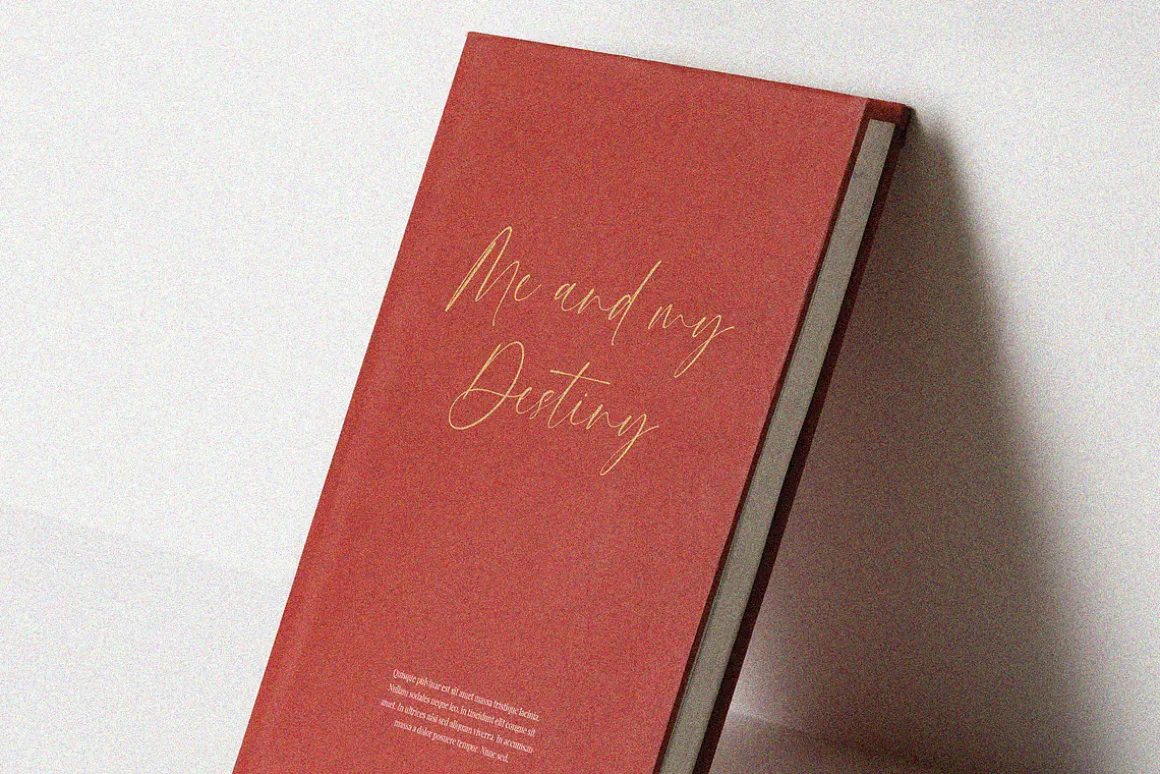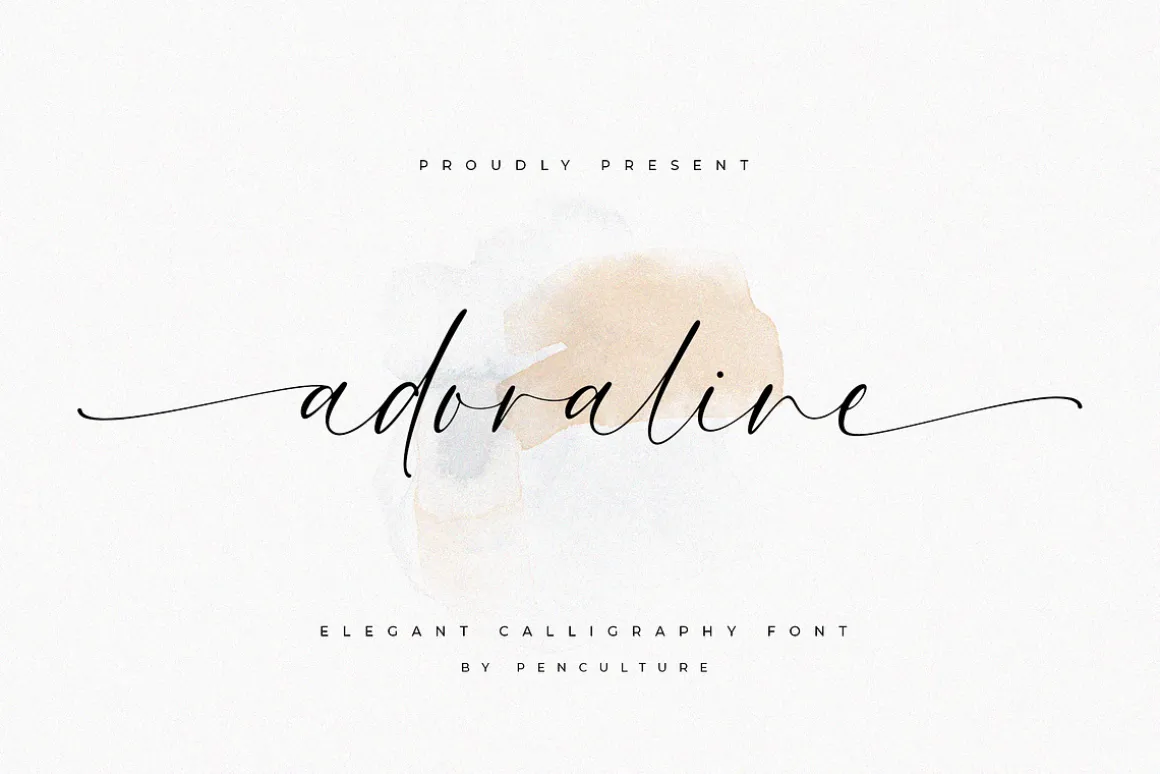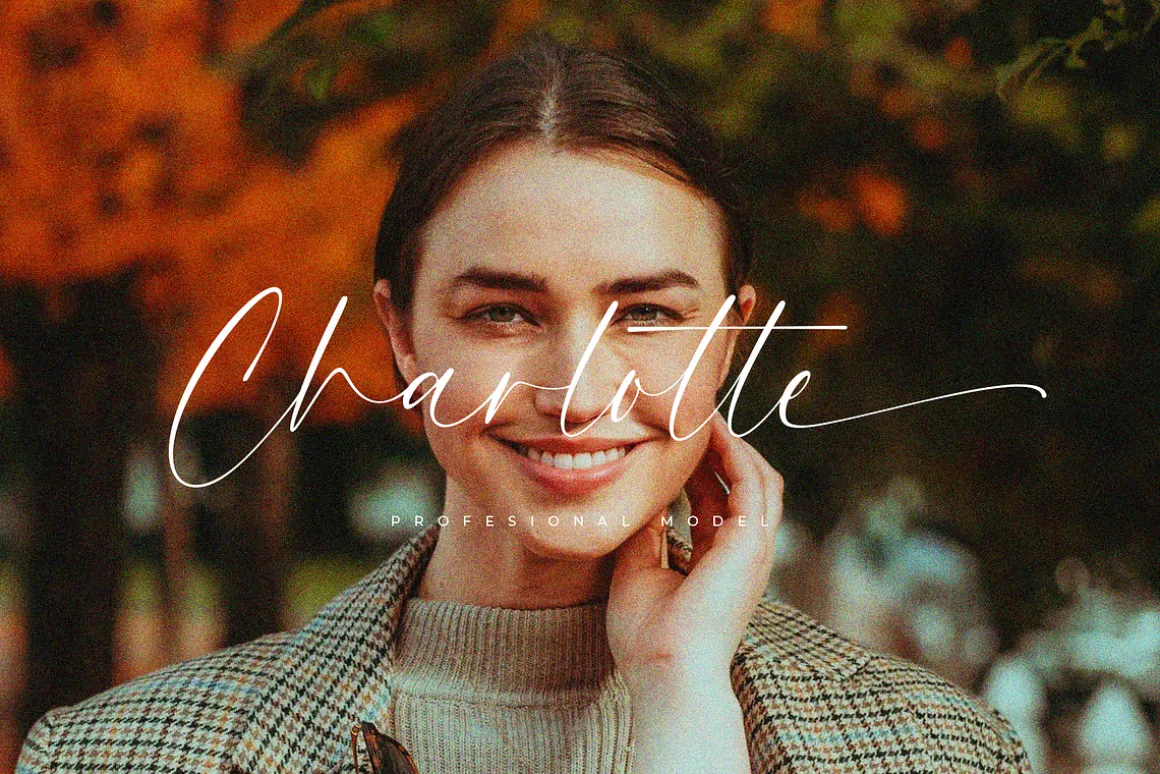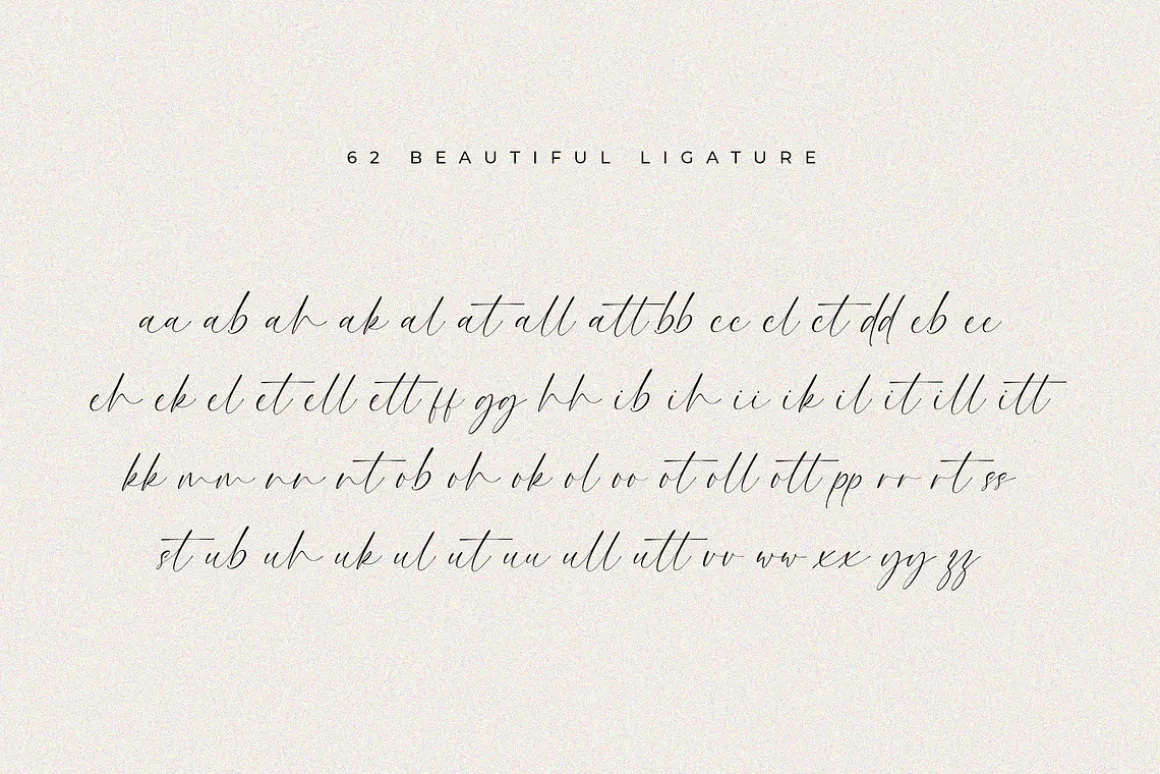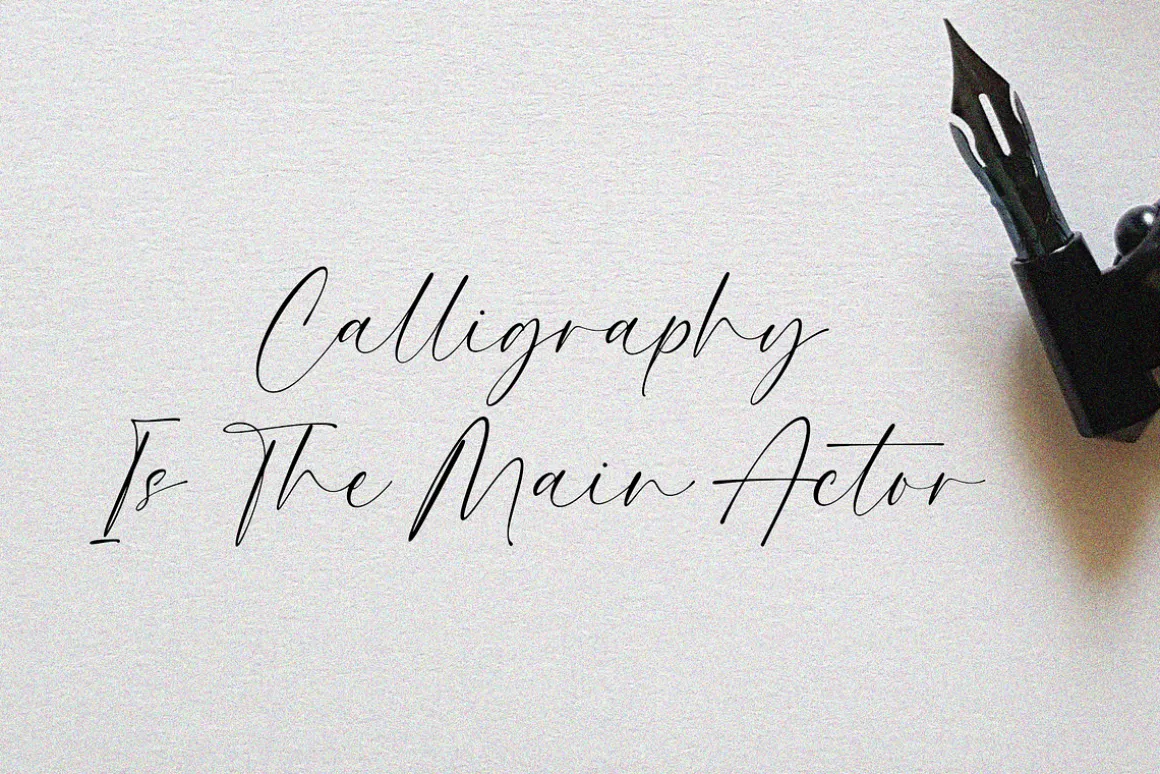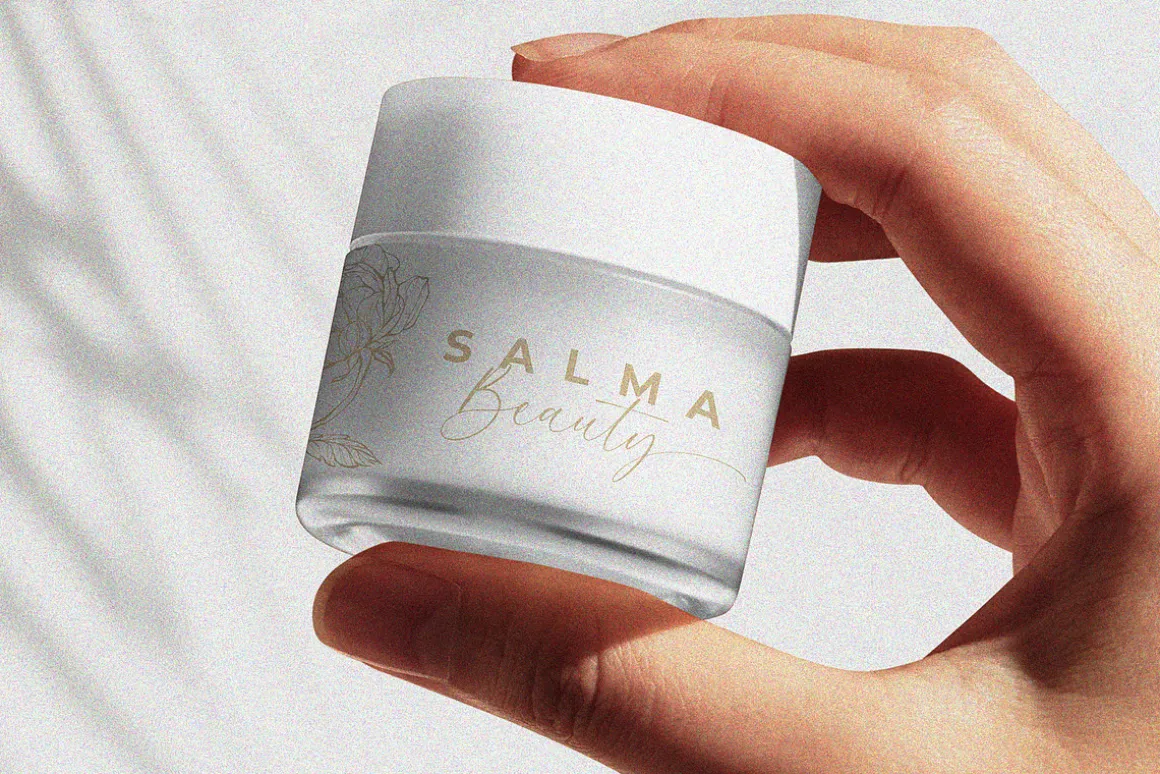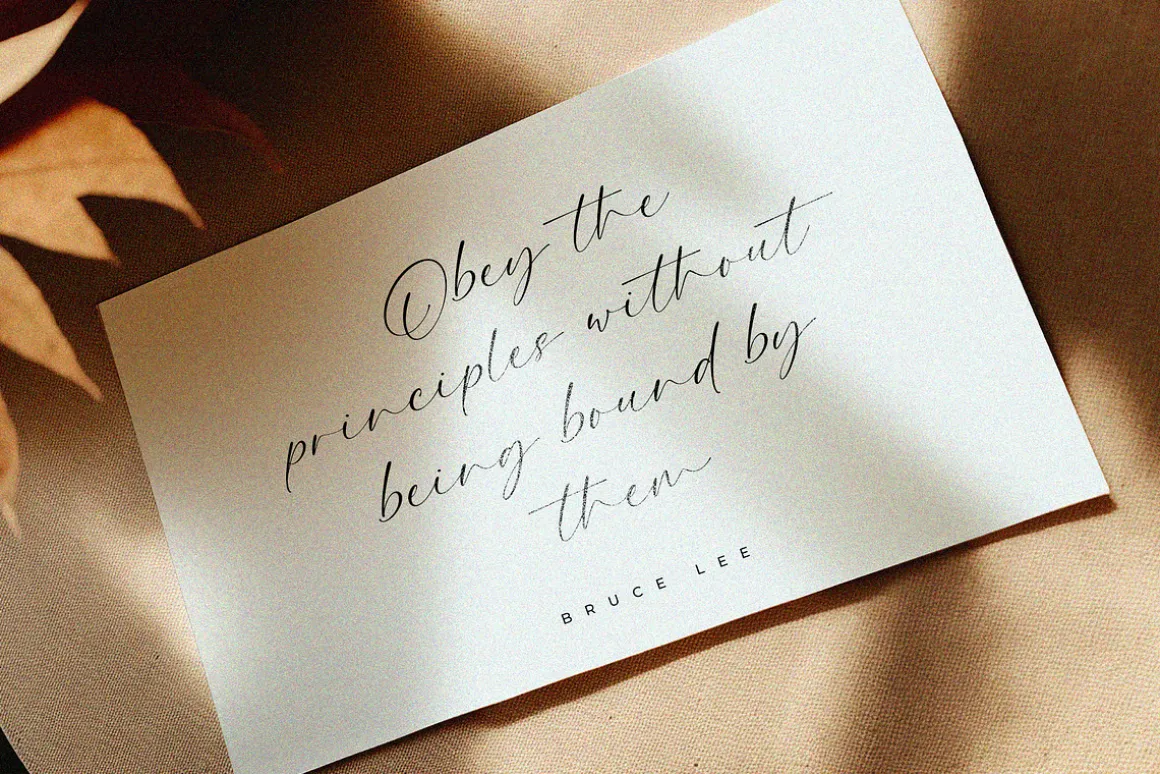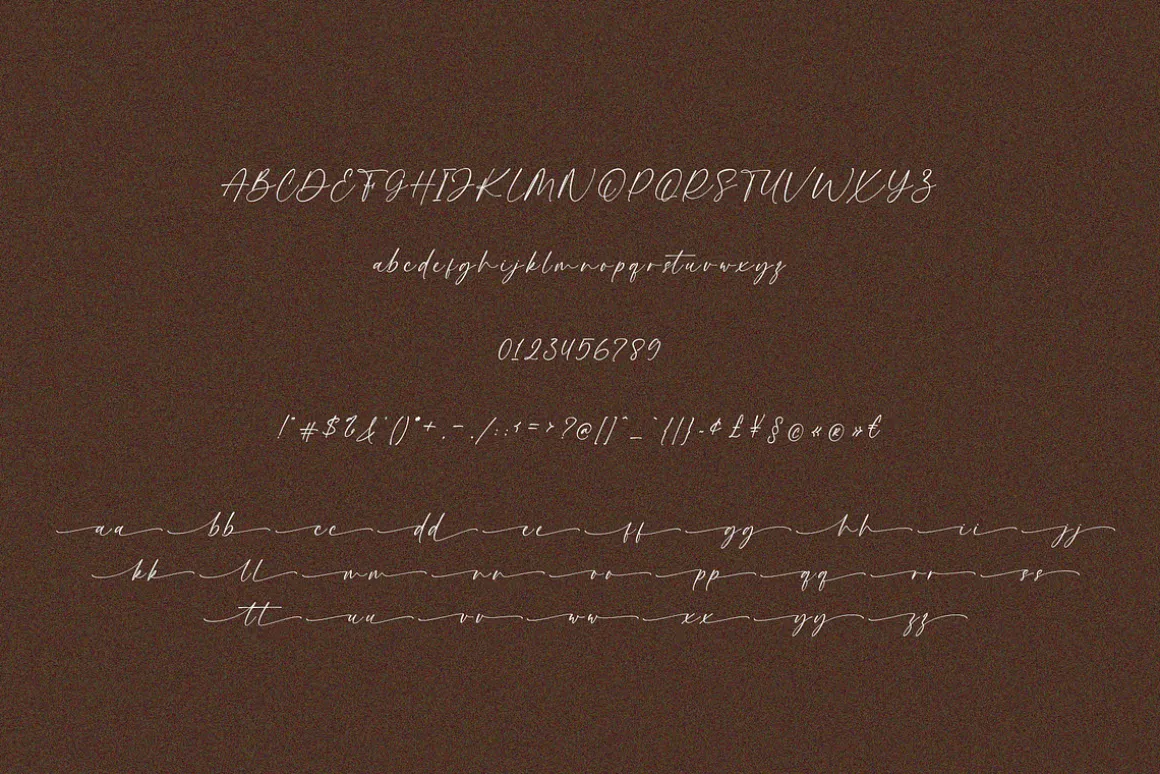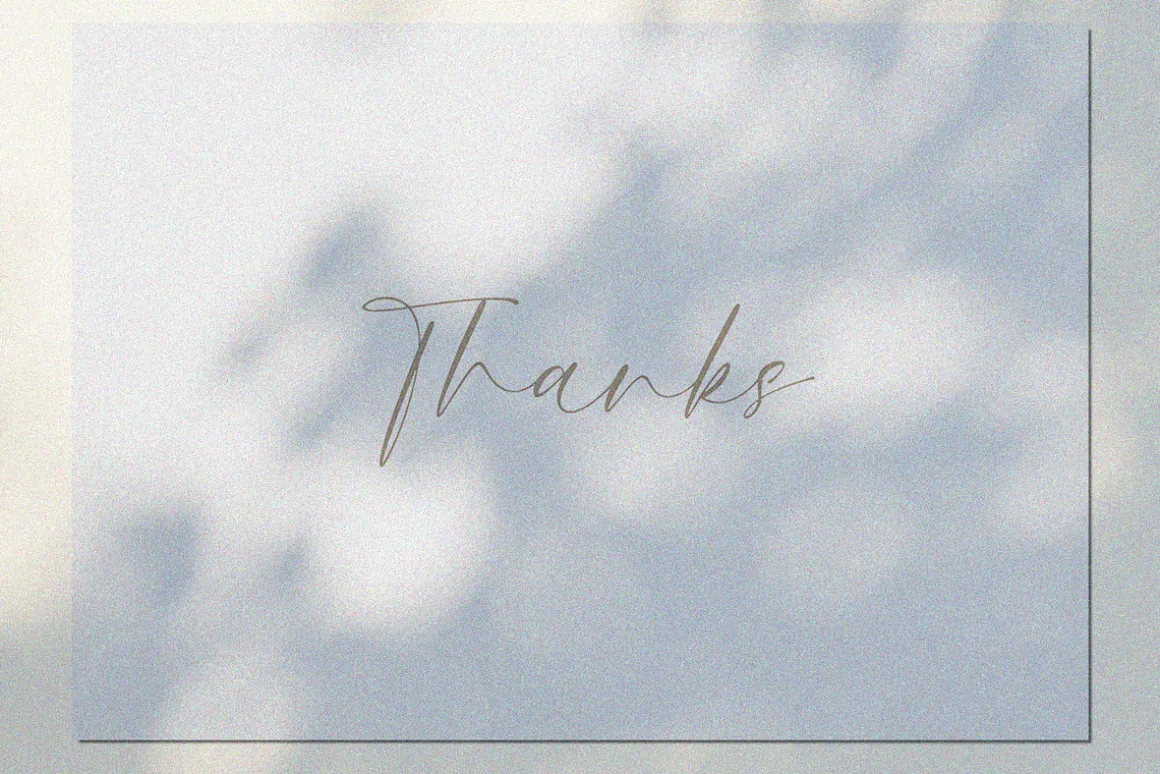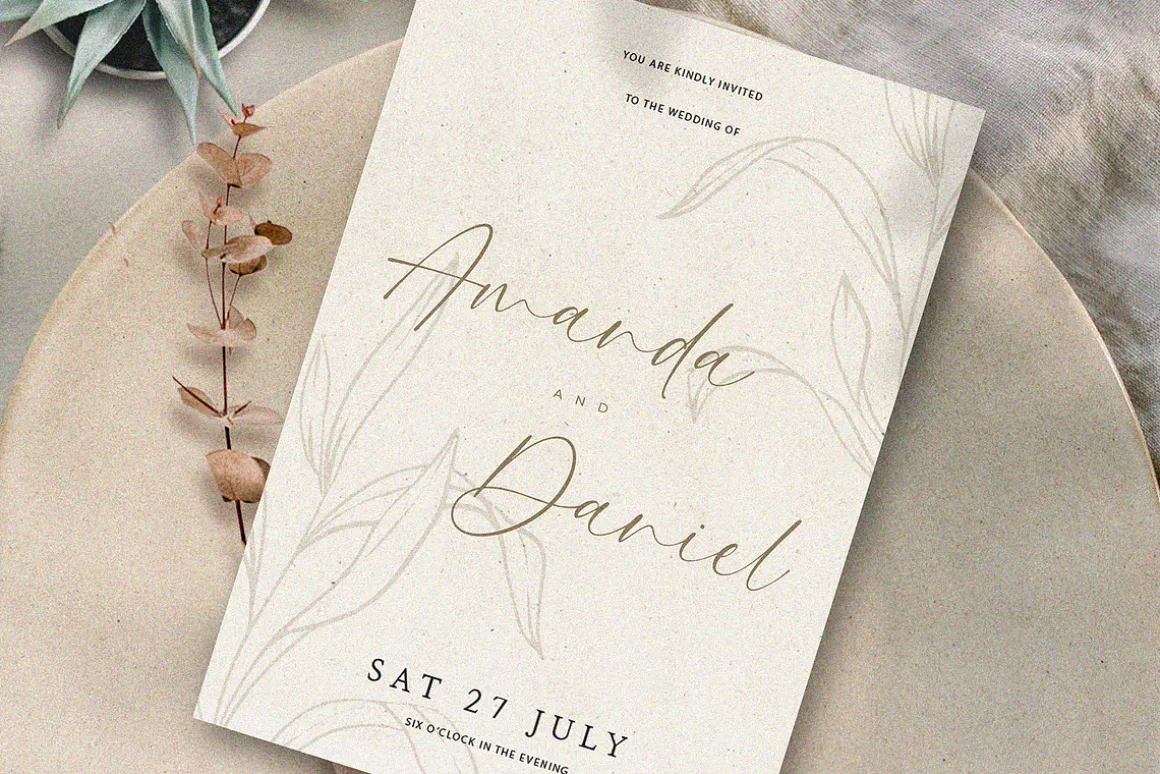
Proudly present “Adoraline – Script Calligraphy Font”
Adoraline is a script calligraphy font that has 62 stunning ligature also beginning and ending swashes. This font will perfect for wedding invitation, but you can also use this font for various other project such as branding/logo design, book covers, posters, Instagram posts and many others.
- Uppercase and lowercase
- Number and punctuation
- 62 stunning ligature
- Beginning and ending swashes